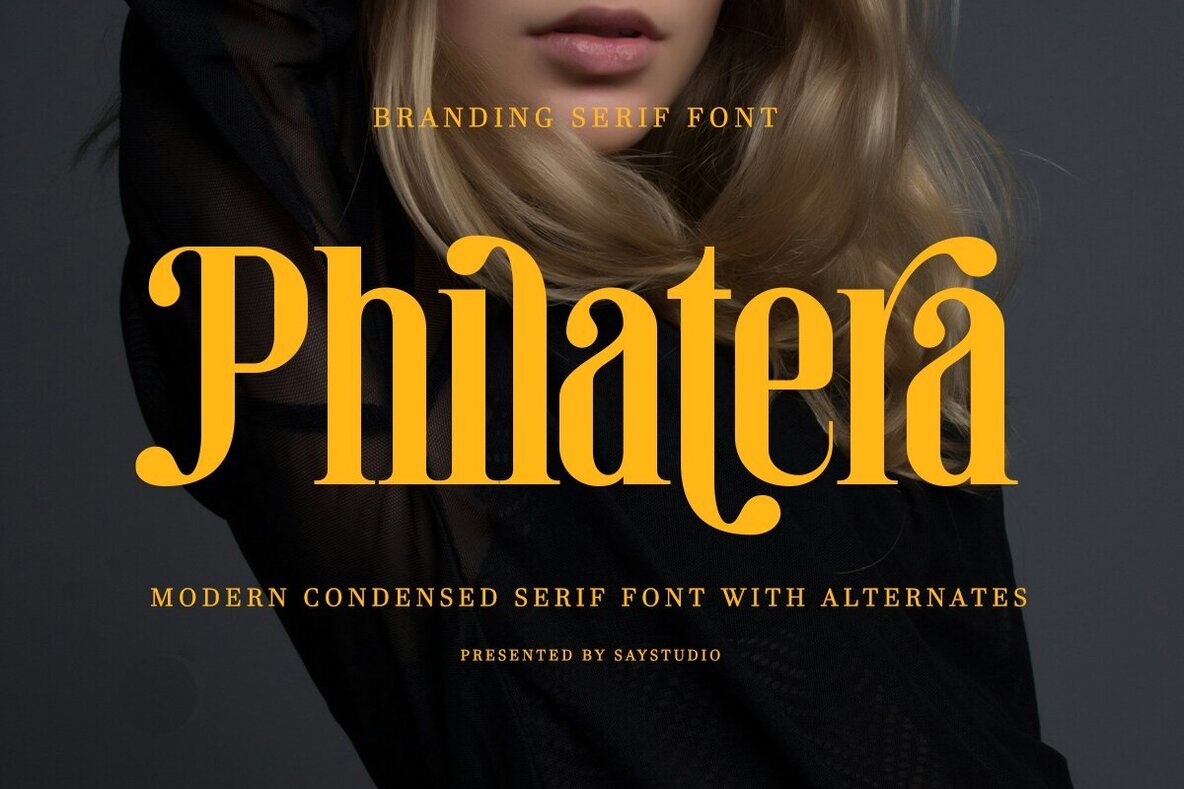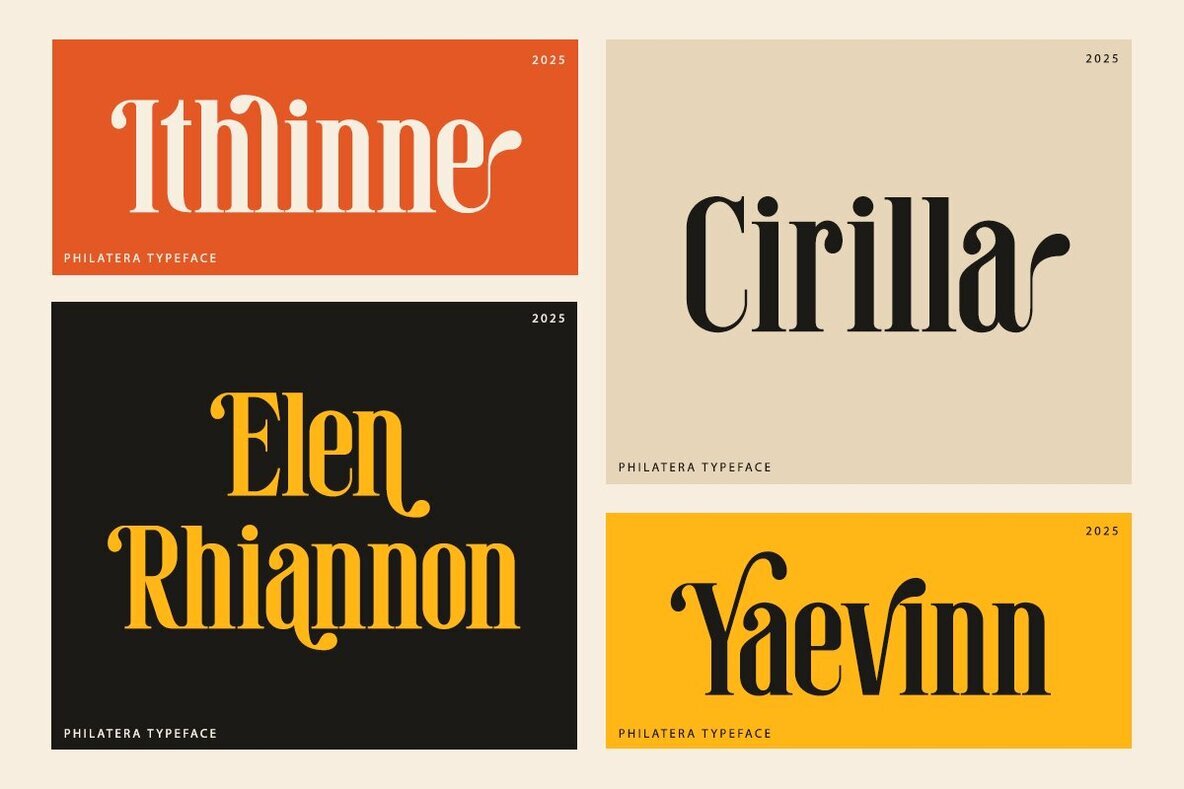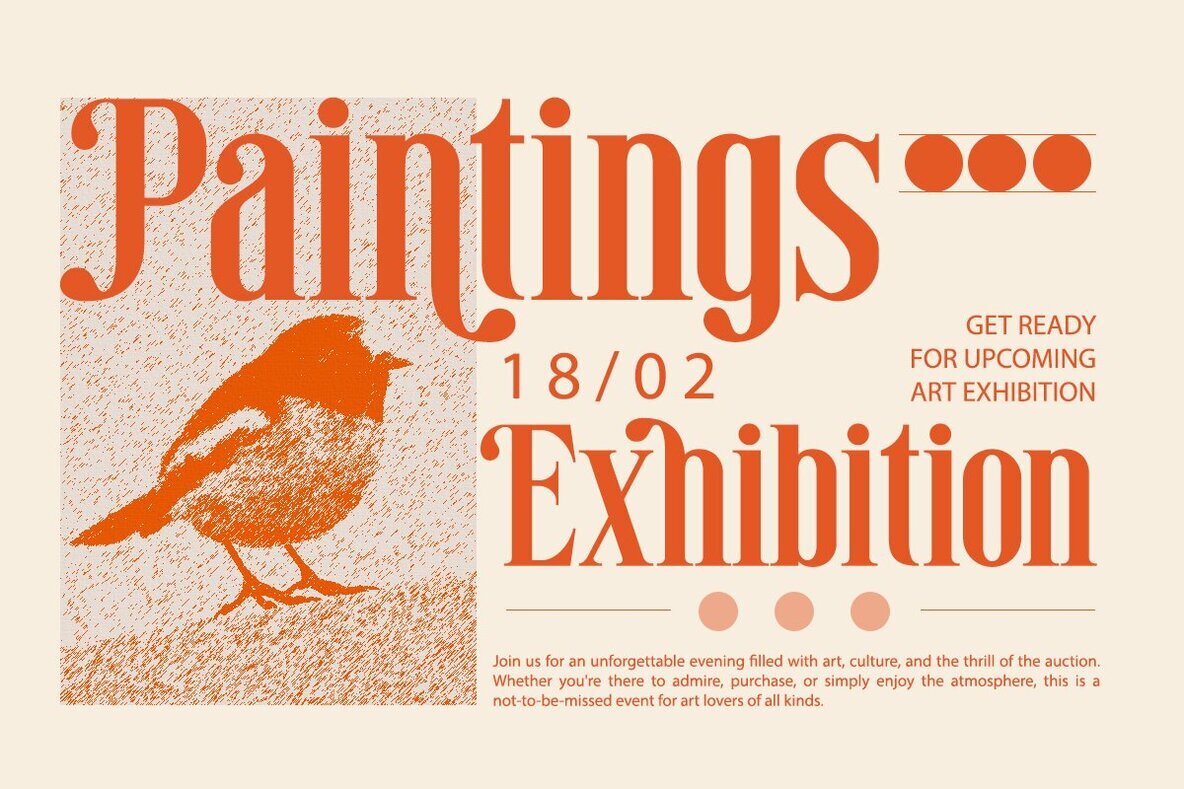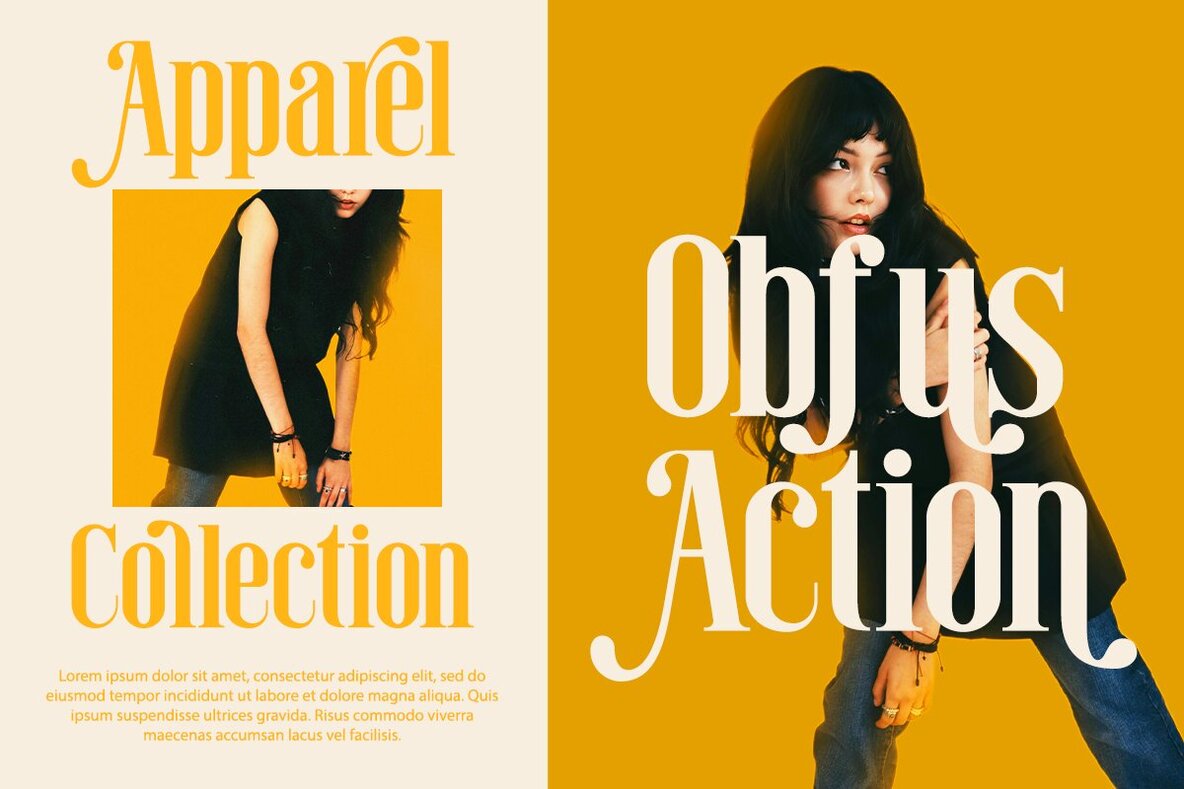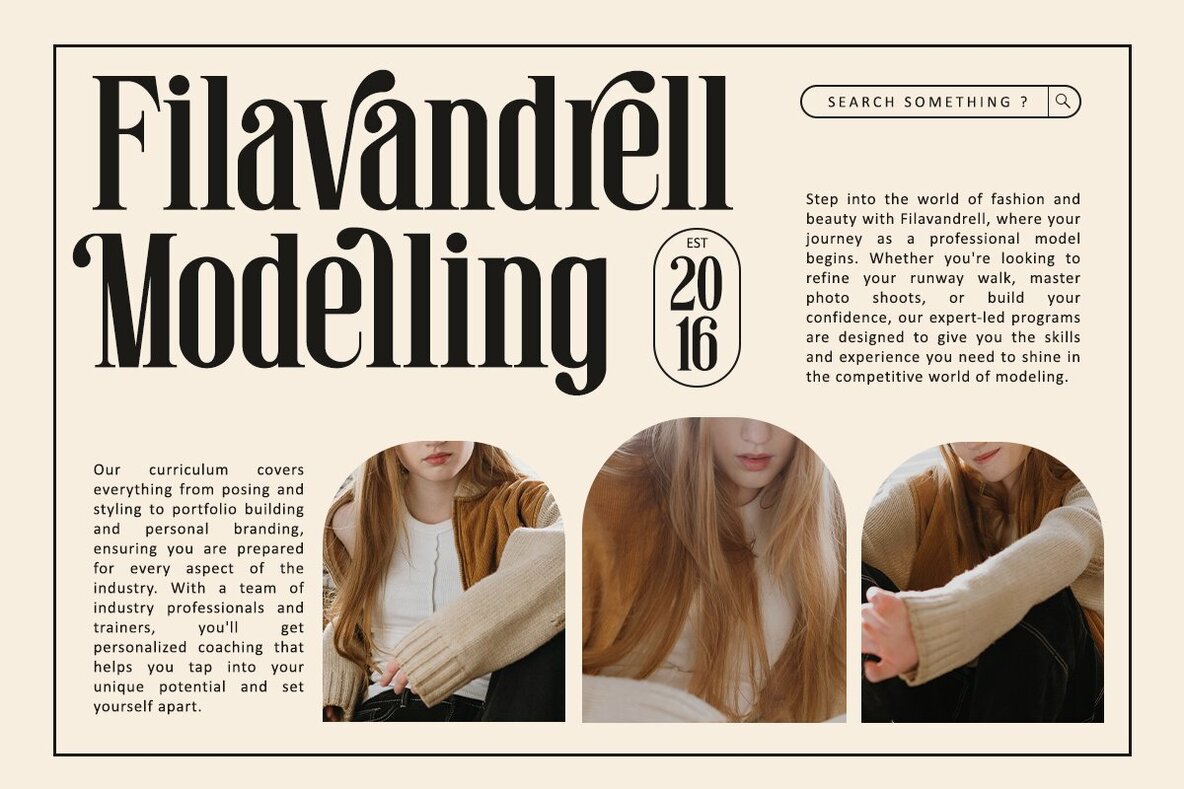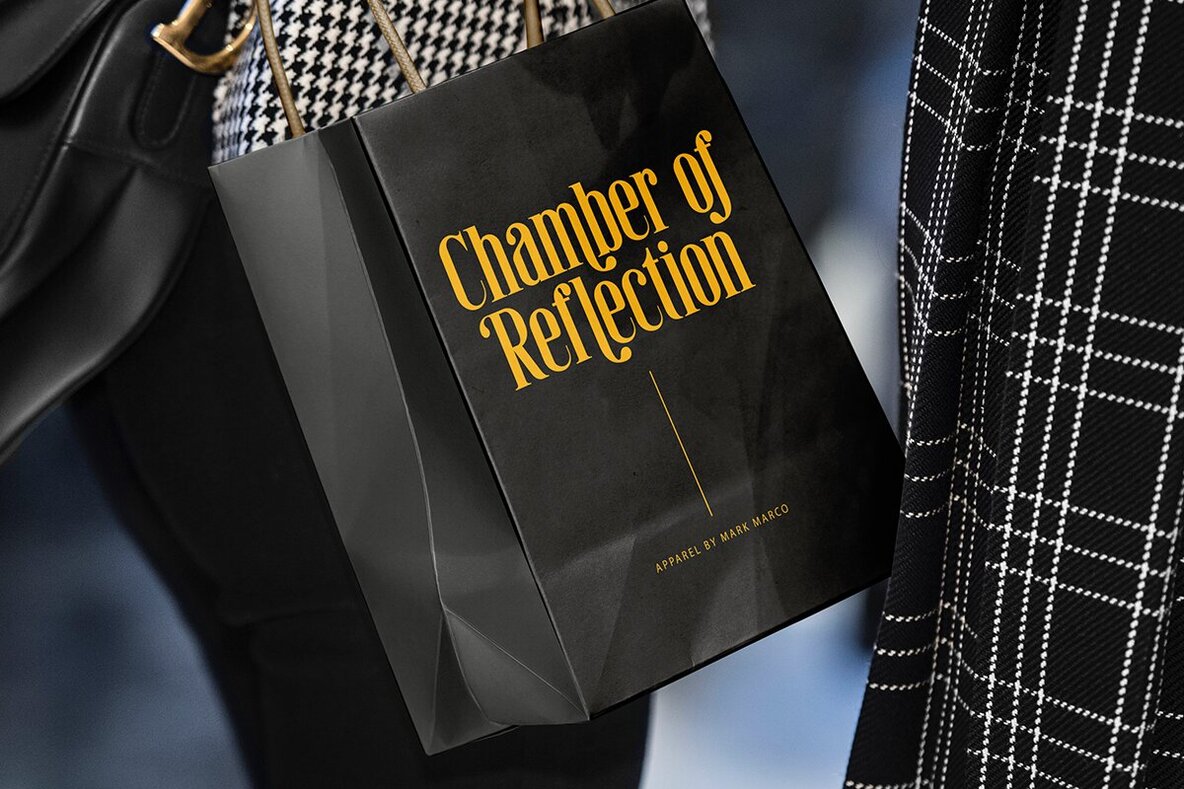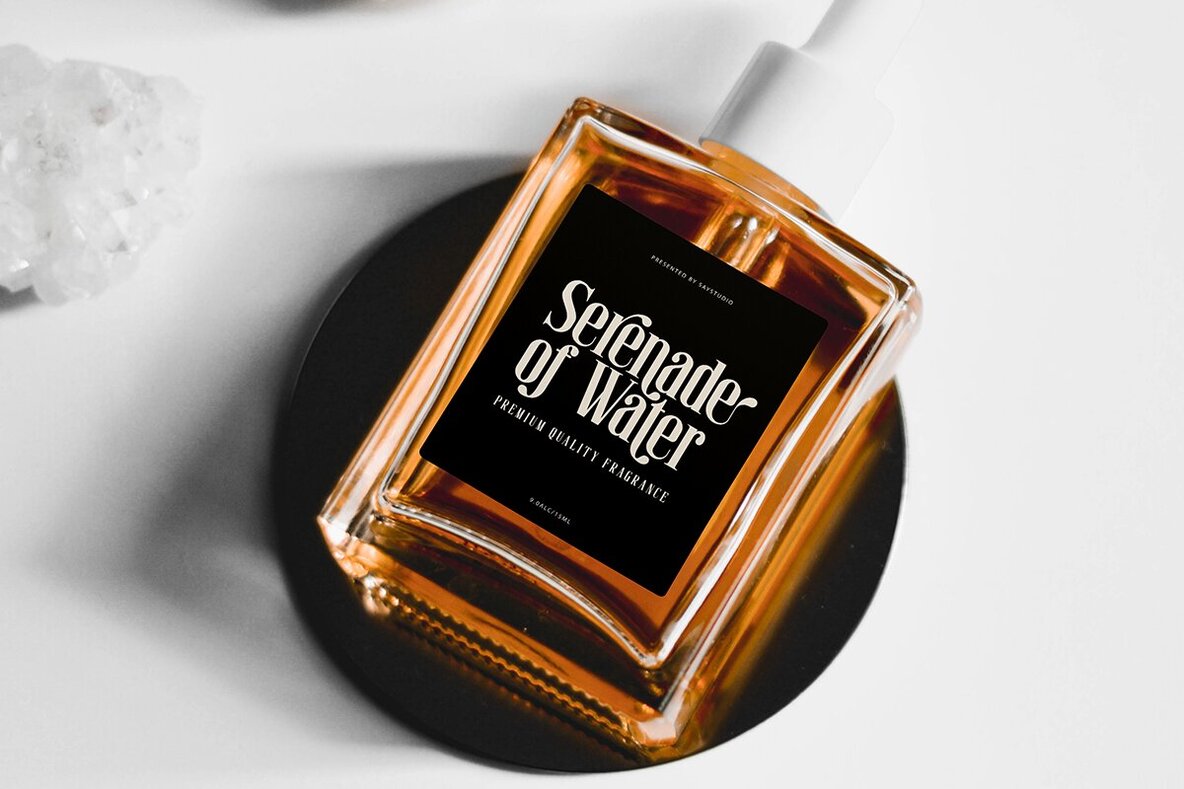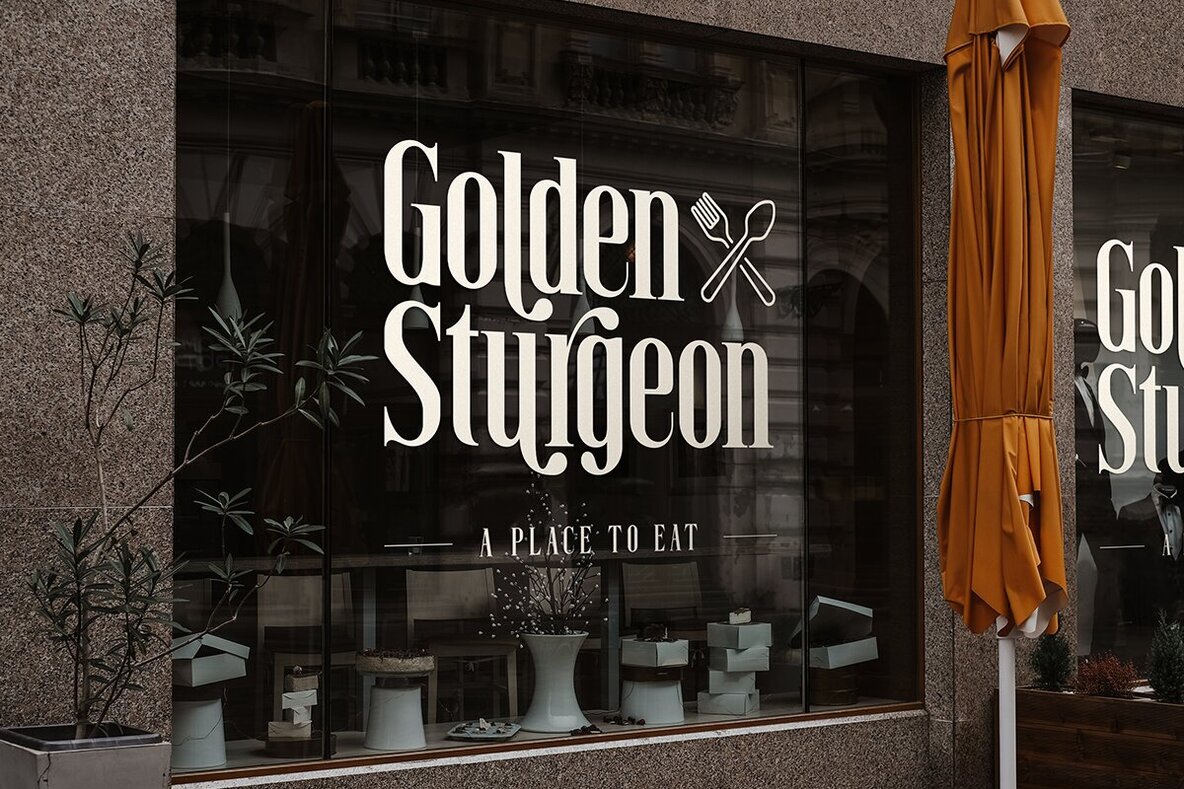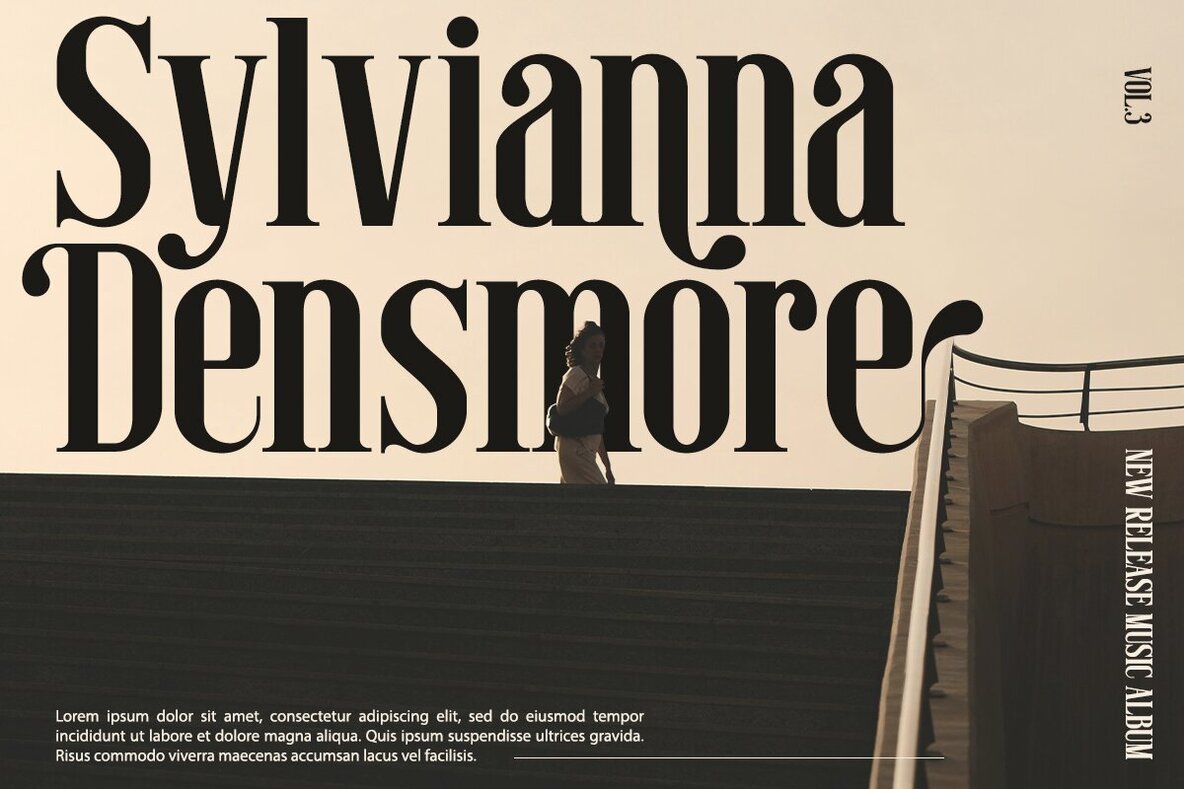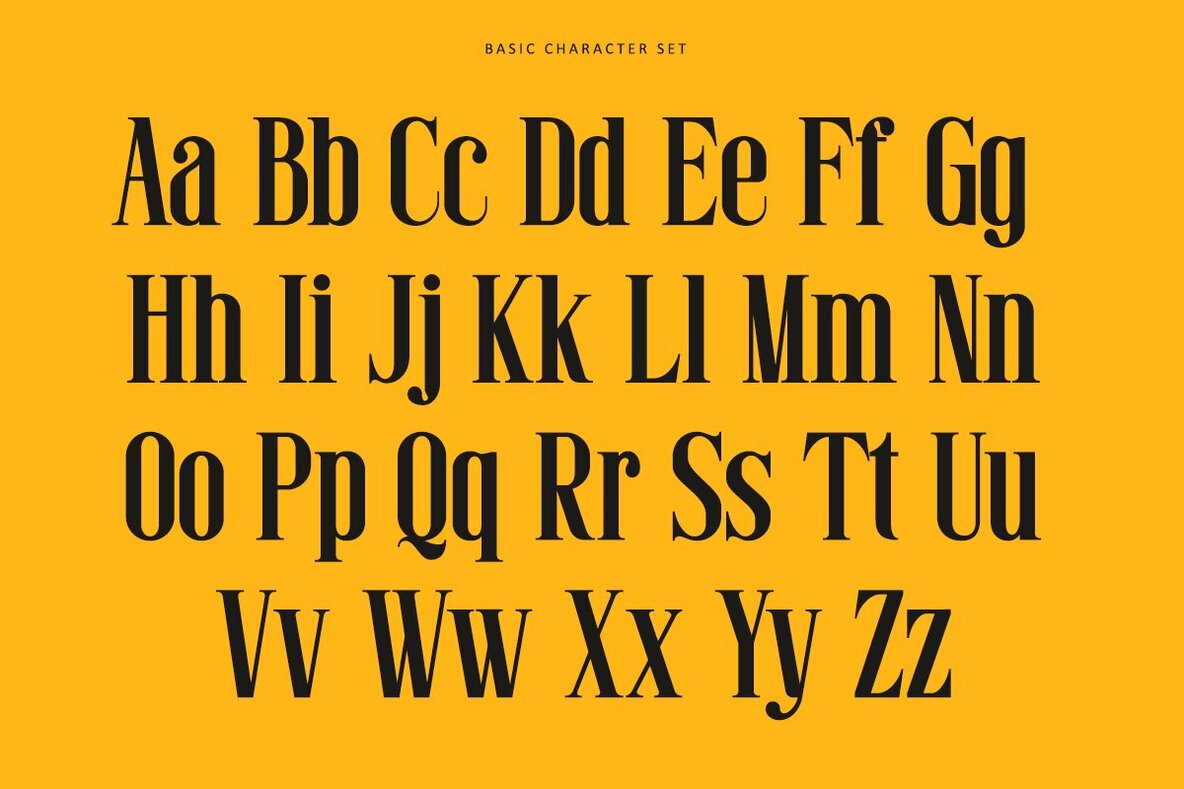
Philatera Font
Philatera is a captivating condensed serif font that combines incredible flexibility with timeless nostalgia. Its standout feature is the tight, refined capital letters—an irresistible choice for any design project. This typeface offers a collection of character alternates, allowing you to add a distinctive twist. Perfect for primary display text, Philatera shines in logos, headlines, and callouts. Its upper and lowercase options are designed to captivate and engage. Whether crafting a beautiful quote or a compelling call to action, this font will leave a lasting impression.Philatera: A Nostalgic Serif Revival